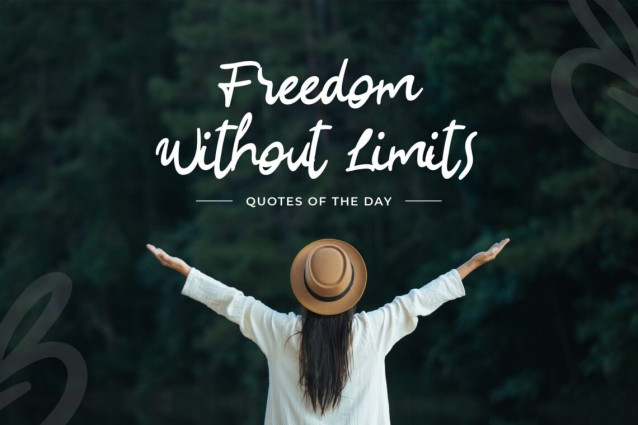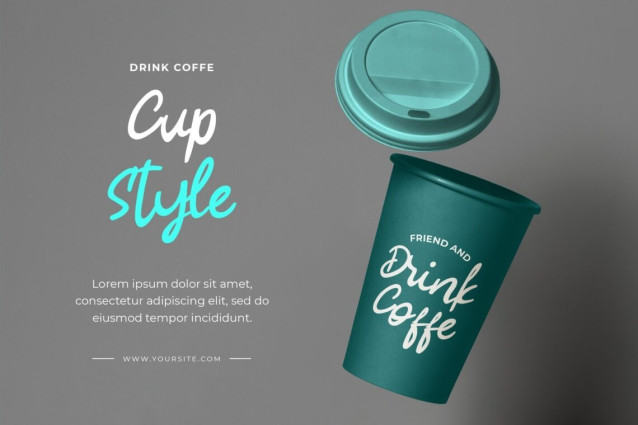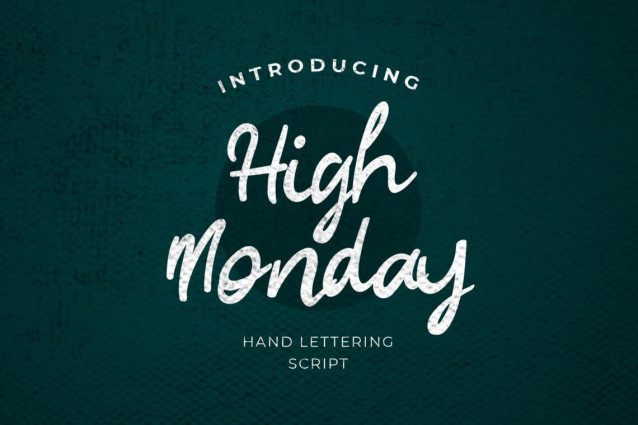
High Monday Brush Calligraphy Font
High Monday Brush Calligraphy is a font that is included in the script family inspired by the writing on the letter. The font combination looks natural and varies in style but still has a proportional scale. This combination of classic and contemporary typography styles is well suited to various fields of project and product design, such as photography, wedding invitations, fashion, greeting cards, notebooks, headlines, logos, T-shirts, watermarks, fashion, social media posts, advertisements, and others.